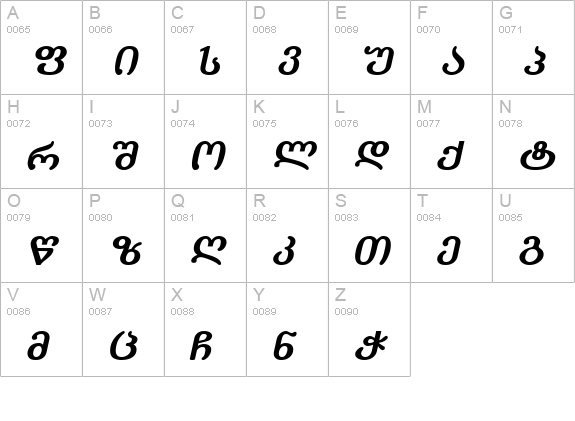
Literaturuly-ITV Bold Italic is a strong, high-contrast, italic variant in the Literaturuly typeface family \xE2\x80\x94 well suited to headlines, attention-grabbing titles, and strong calls-to-action.
Literaturuly-ITV Bold Italic font is a stunning and sophisticated typeface that exudes elegance and modernity. Its bold and italic design makes it perfect for adding a touch of flair to any project, whether it be for print or digital use. With its clean lines and striking presence, this font is sure to make a statement and capture the attention of viewers. The best part? Literaturuly-ITV Bold Italic font is available for free download at FontsMarket.com. This means you can easily access this stylish font and use it in your designs without any cost. Whether you're a graphic designer, a blogger, or just someone looking to add some pizzazz to your projects, this font is a must-have in your collection. Don't miss out on the opportunity to enhance your designs with the sleek and bold look of Literaturuly-ITV Bold Italic font. Download it for free today and elevate your creative projects to the next level!